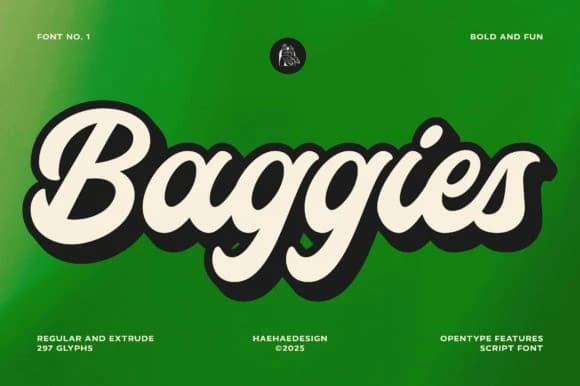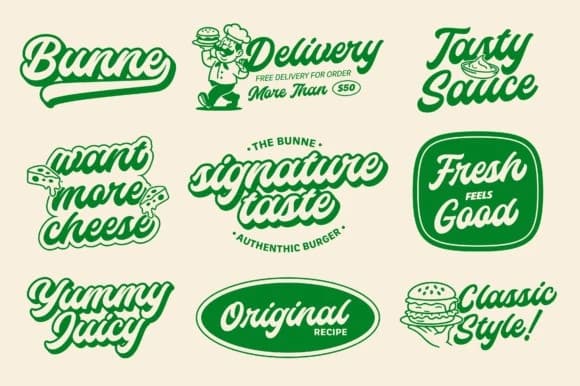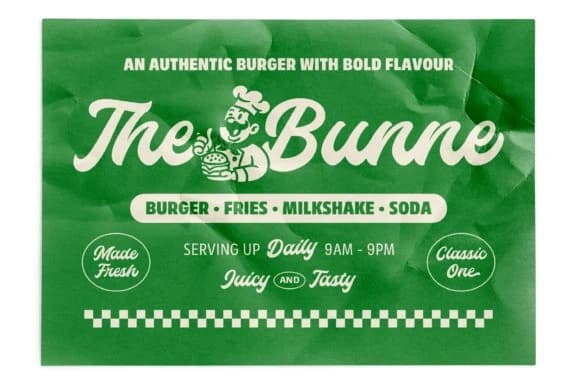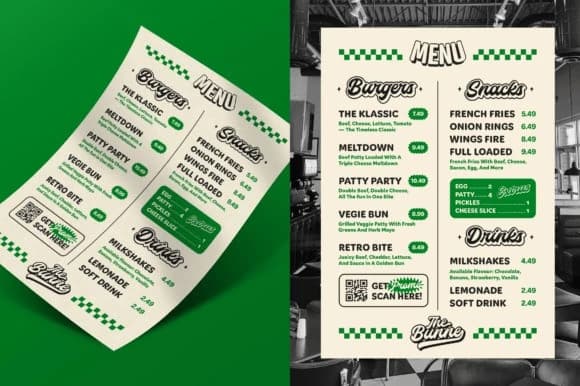
Baggies Script Font
Baggies Script Font is a bold, fun, and visually delicious display typeface that perfectly captures the nostalgic vibe of 1970s and 80s branding, making it ideal for everything from classic snack packaging to retro apparel.